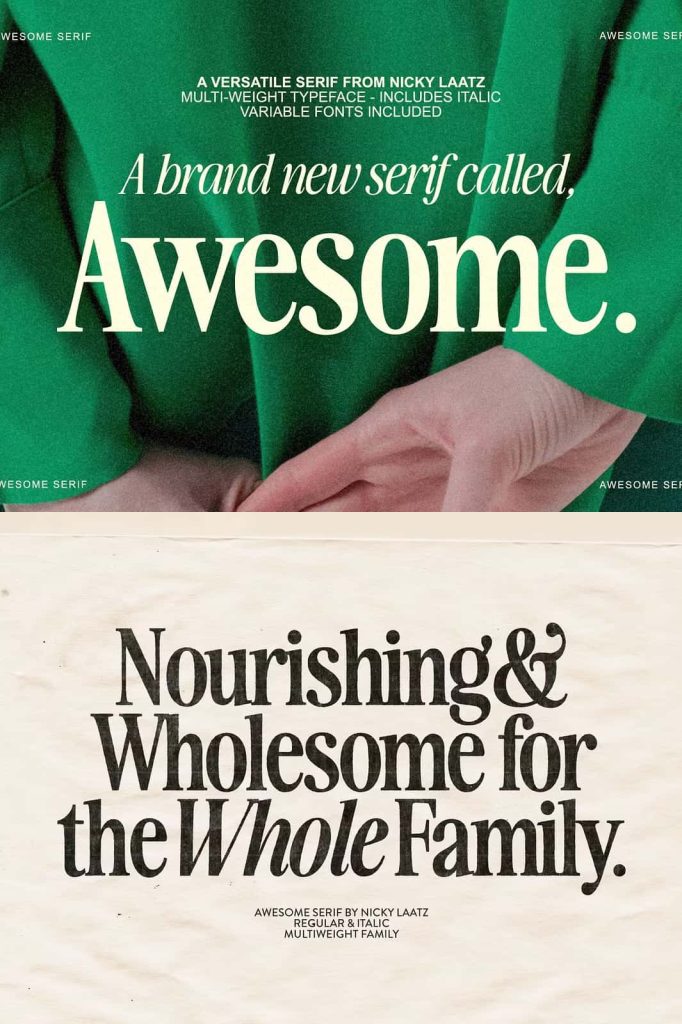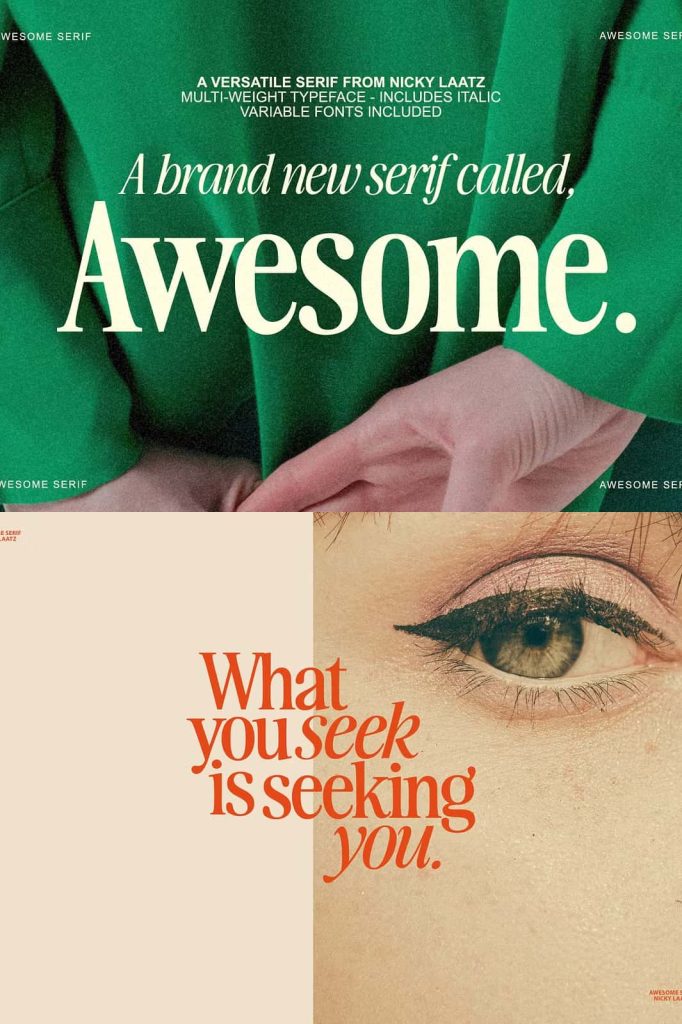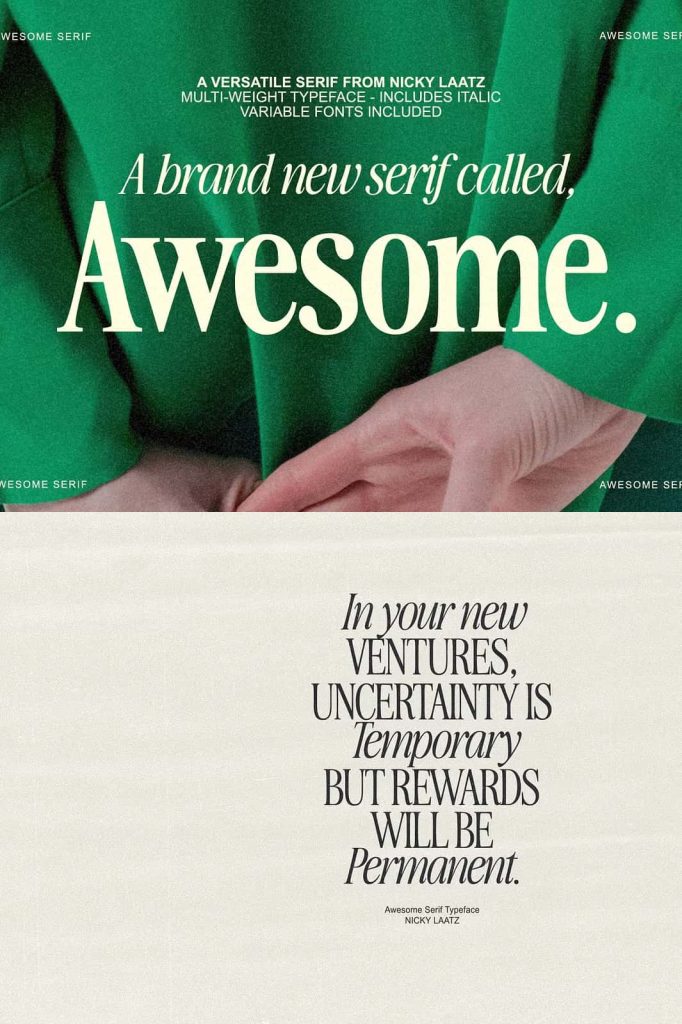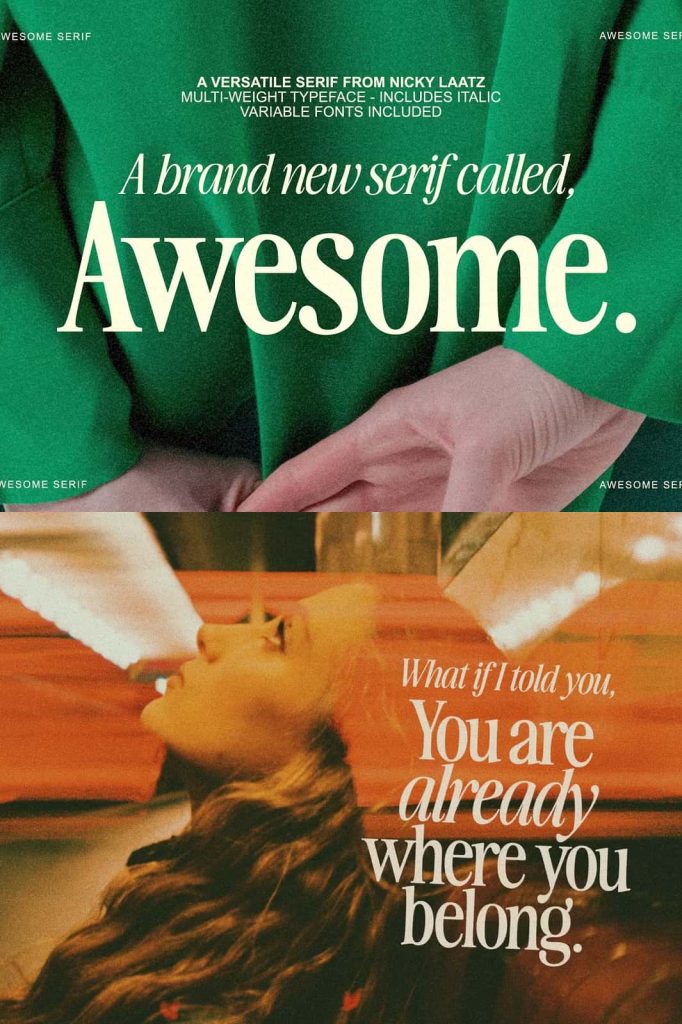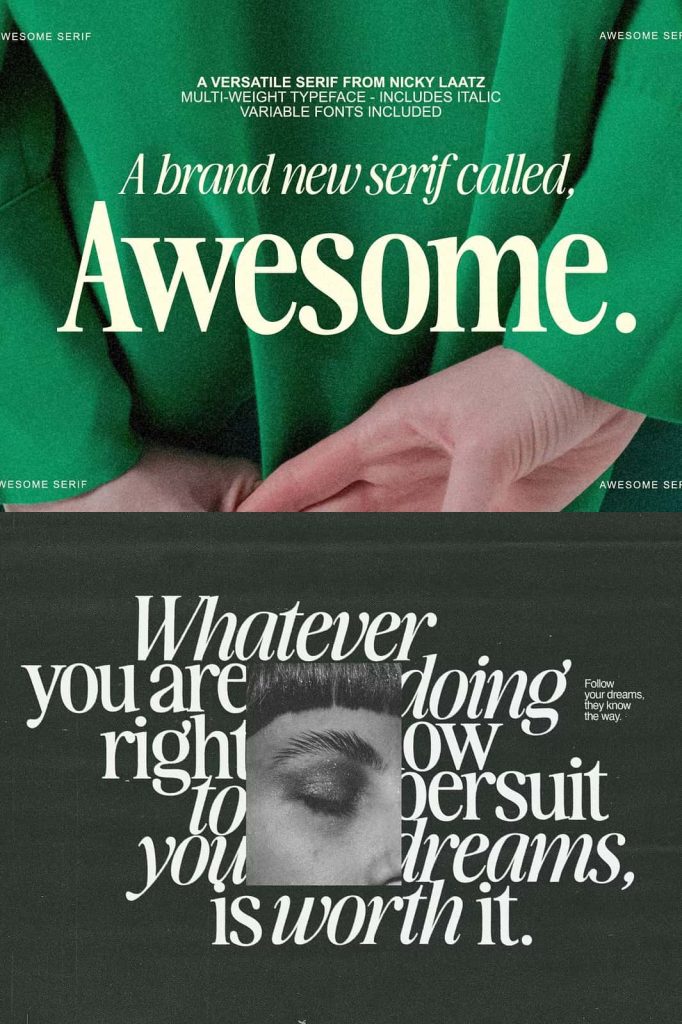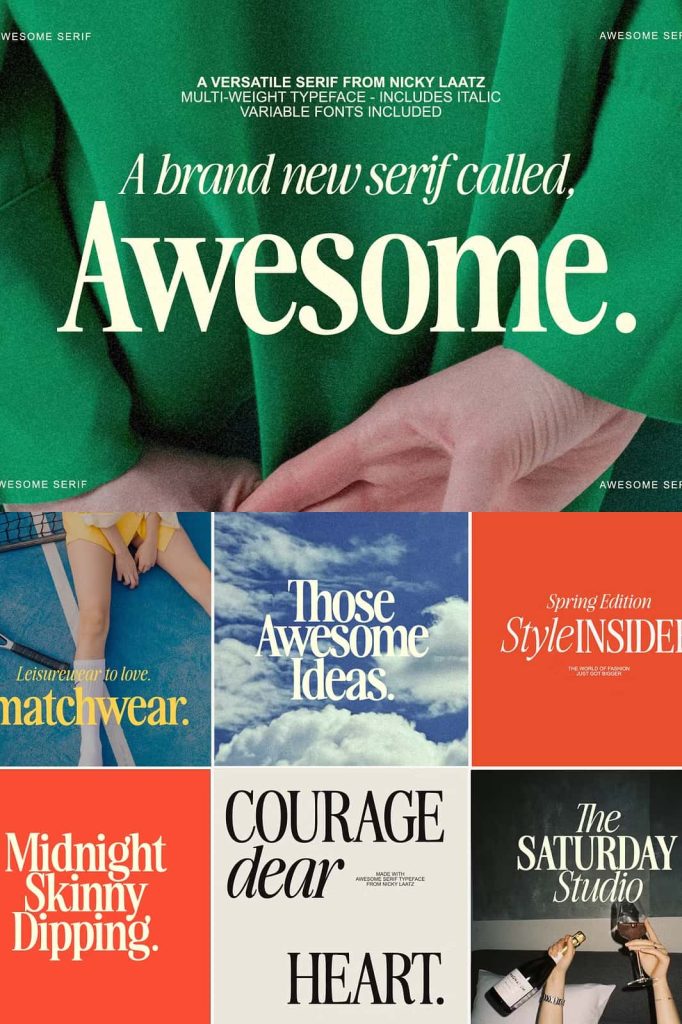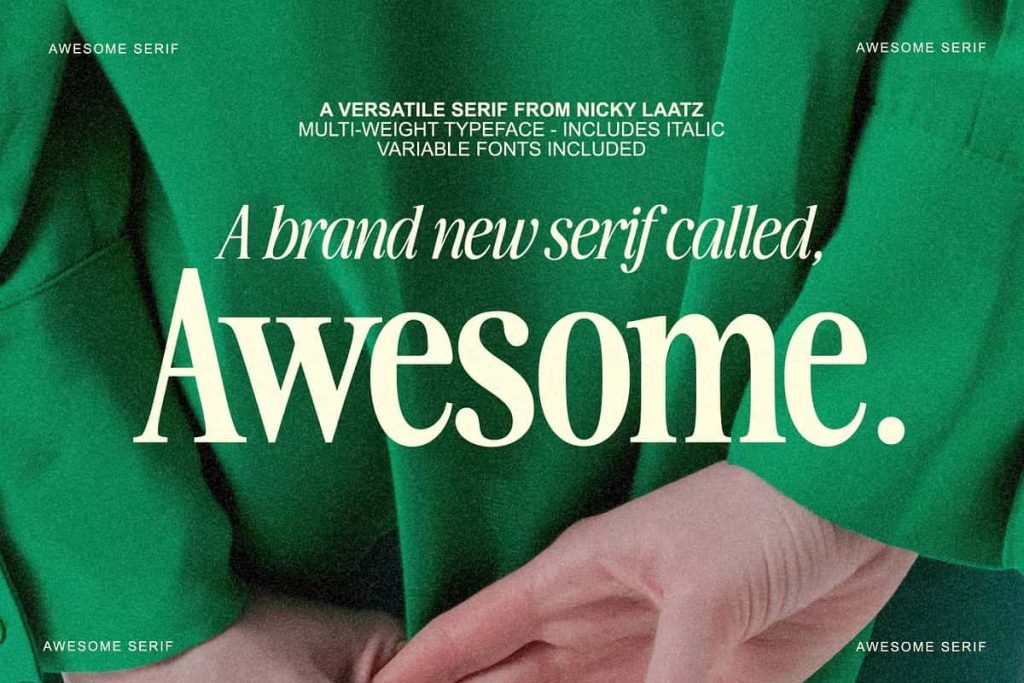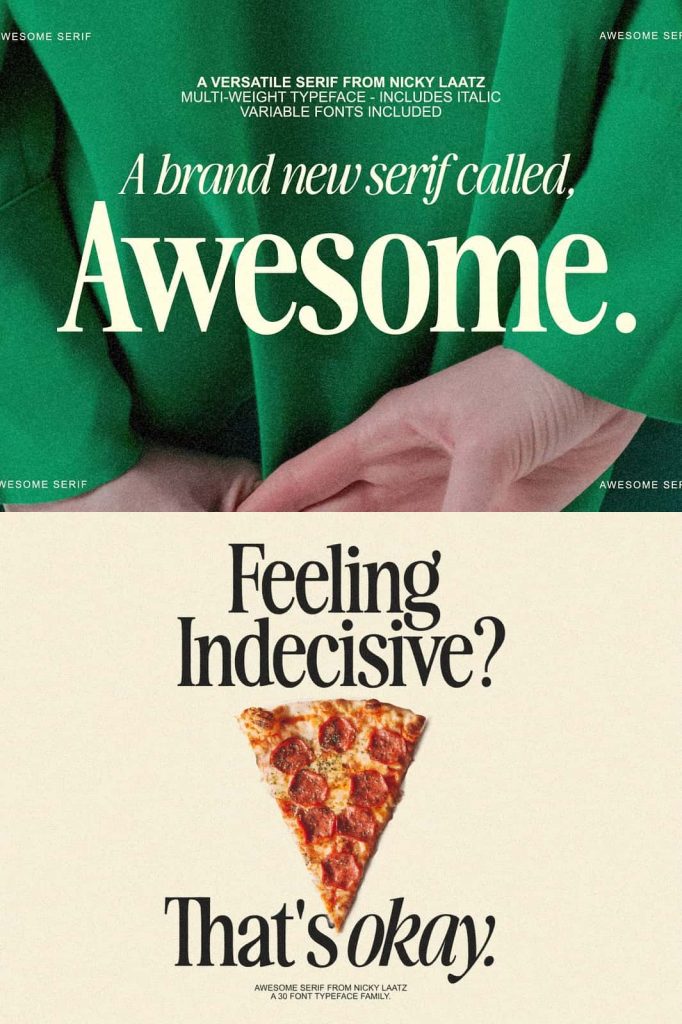
Awesome Serif is stylish, but with a retro edge. It’s was created to be super versatile – it can morph into delicate sophisticated projects – or bold edgy retro designs. Take your pick 🙂 Use the Type tester below to type out your text and take it for a spin!